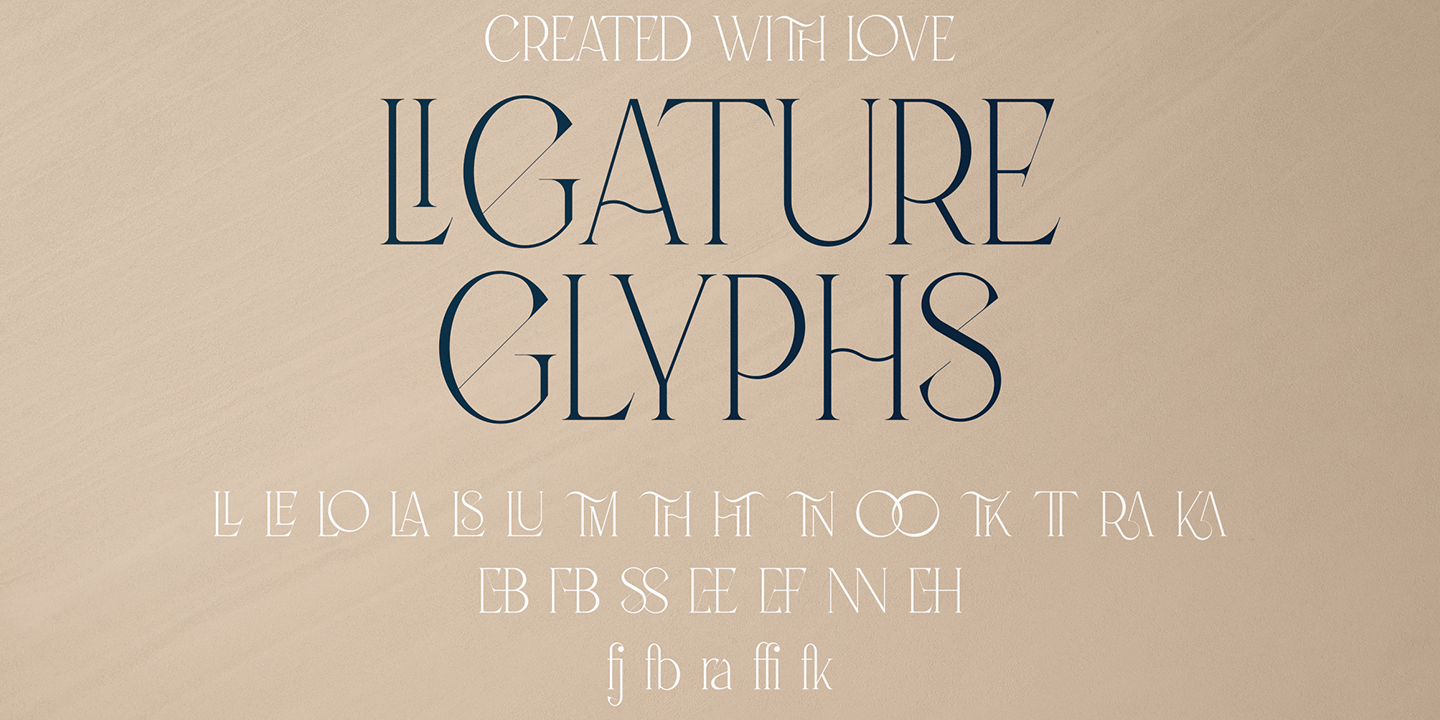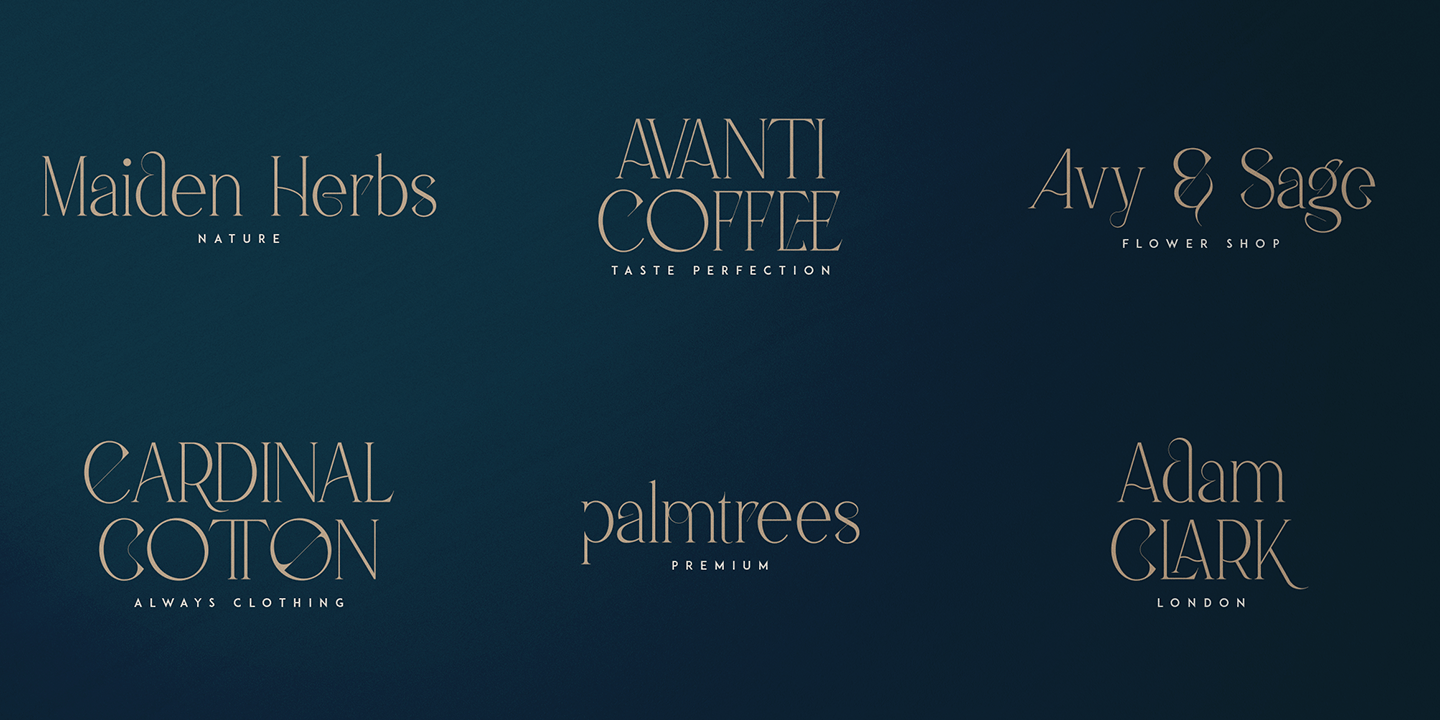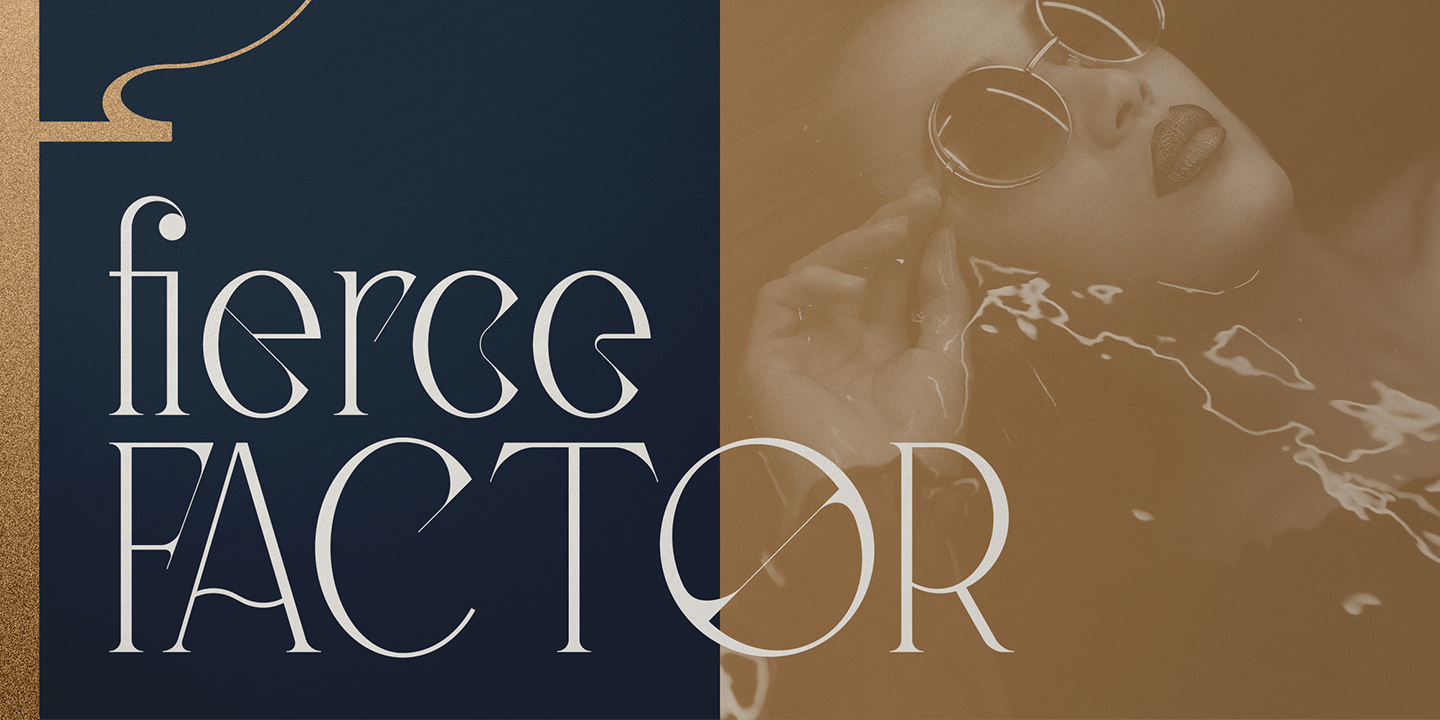
About Malinger VP
Introducing Malinger – Stylish Serif font – latin and cyrillic Malinger is stylish and creative font loaded with 95 languages support, alternate and ligature glyphs to make you typography truly unique! Language Support : Belarusian, Bosnian,…